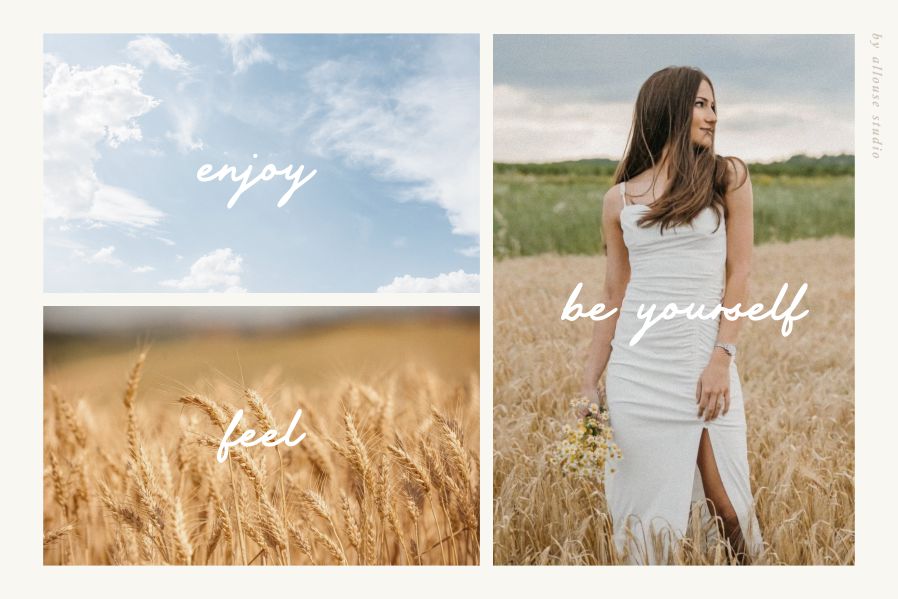
American Mountain Font
American Mountain Handwritten Font is a Casual Signature Font. American Mountain is perfect for product packaging, branding project, megazine, social media, wedding, or just used to express words above the background.